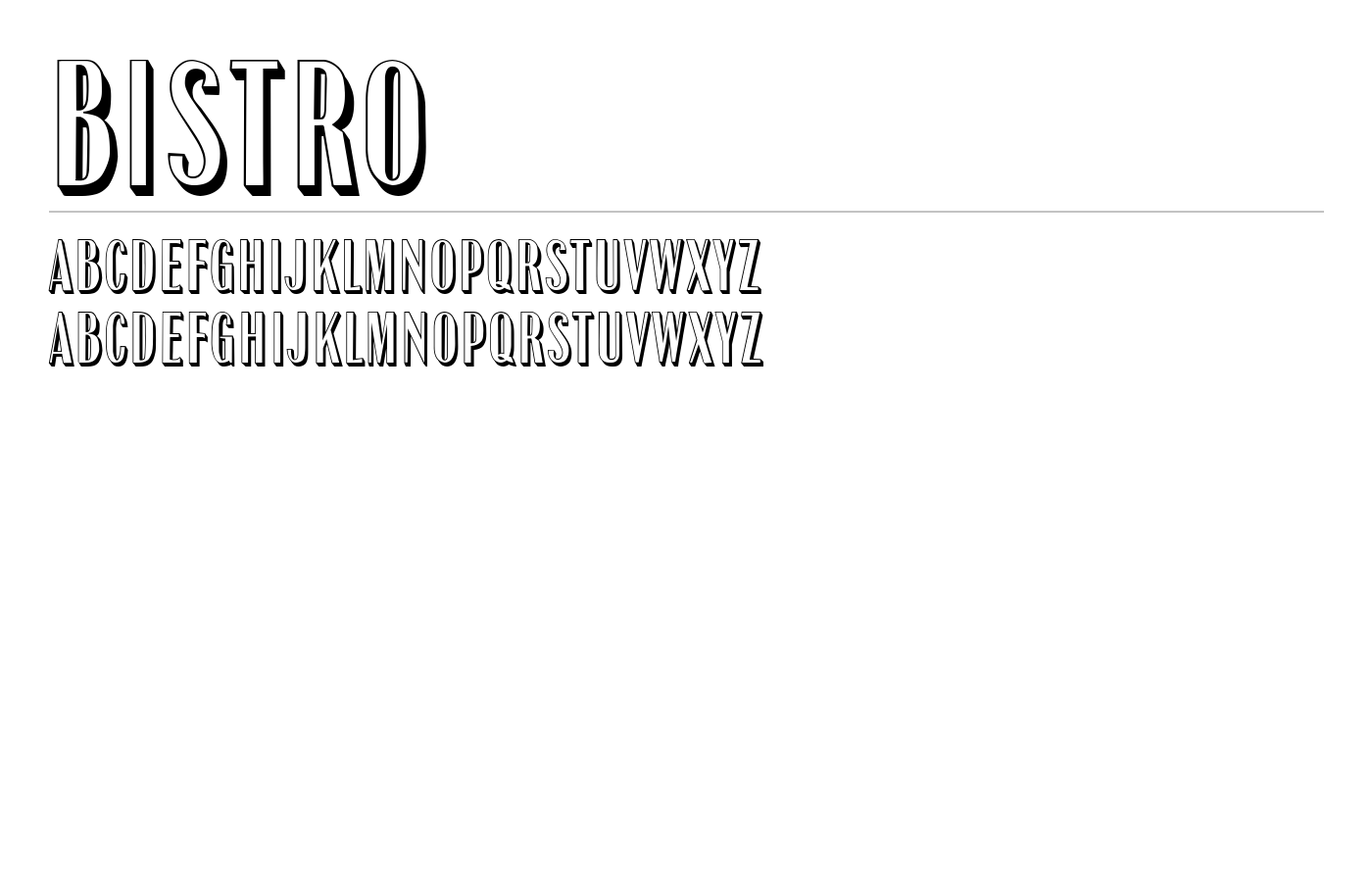
Bistro is a condensed, sans serif display font with a strong vintage vibe, featuring tall, narrow letterforms and a distinctive shadow effect that adds depth and character. Its bold yet elegant style makes it ideal for eye-catching headlines, logos, and signage, especially for brands seeking a retro or artisanal feel. This font works beautifully in creative and hospitality contexts where a unique, nostalgic look is desired.
Bistro Font
About Bistro Font